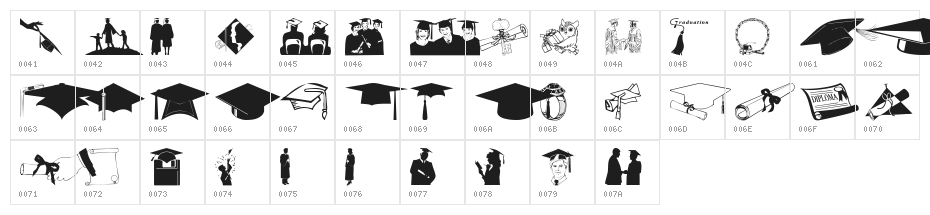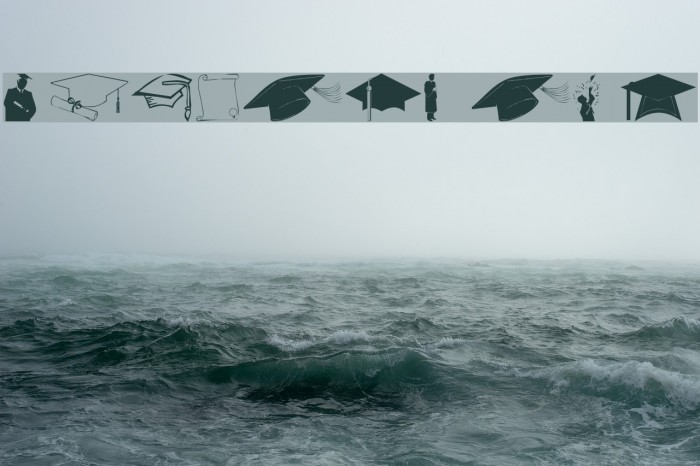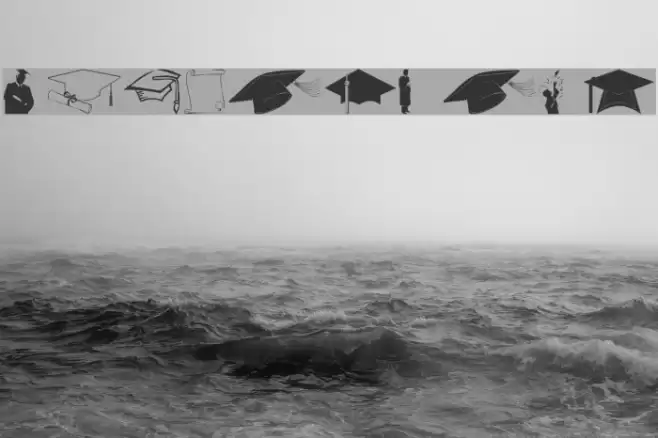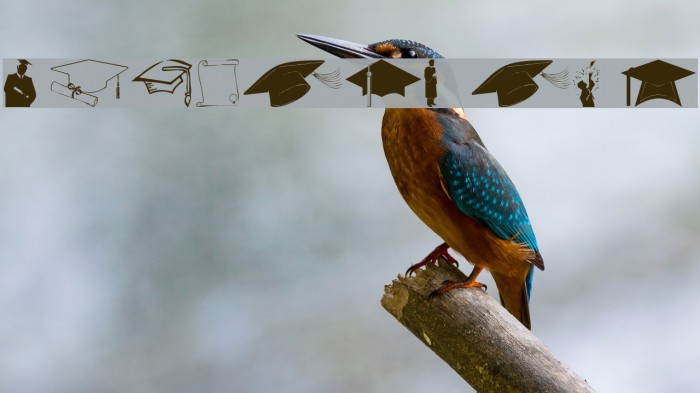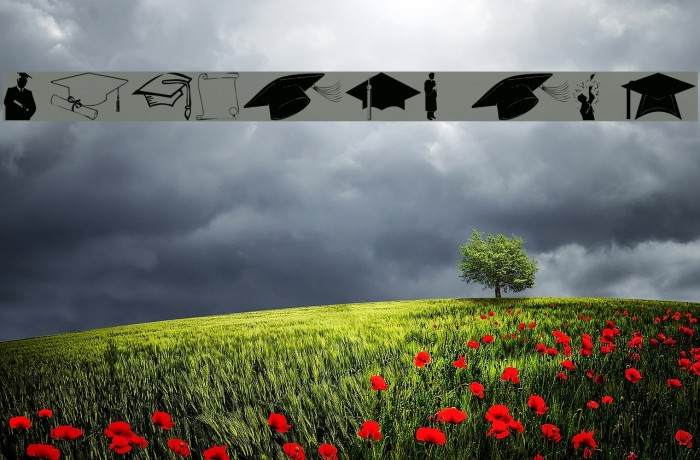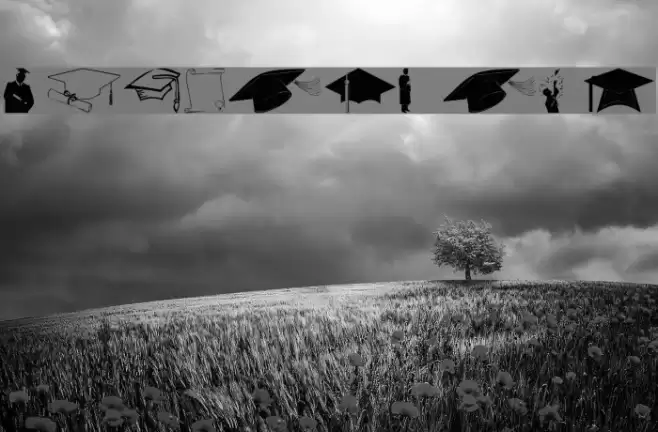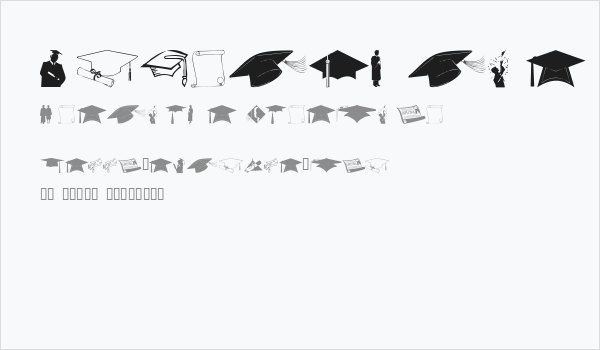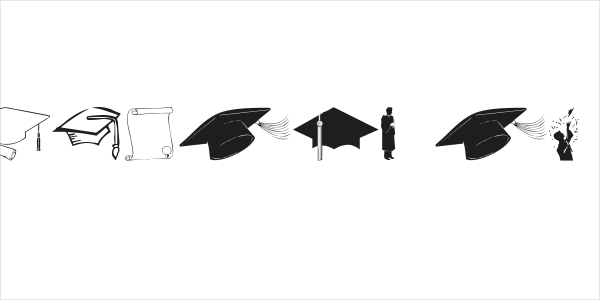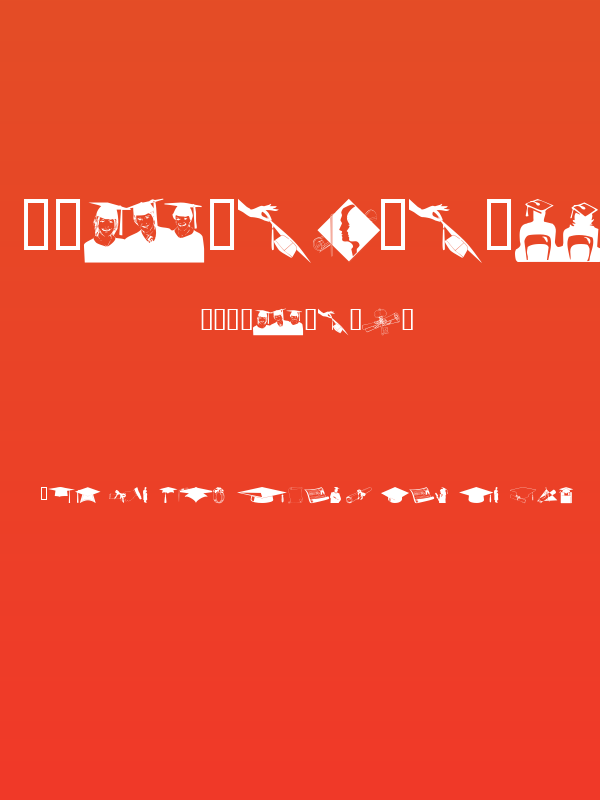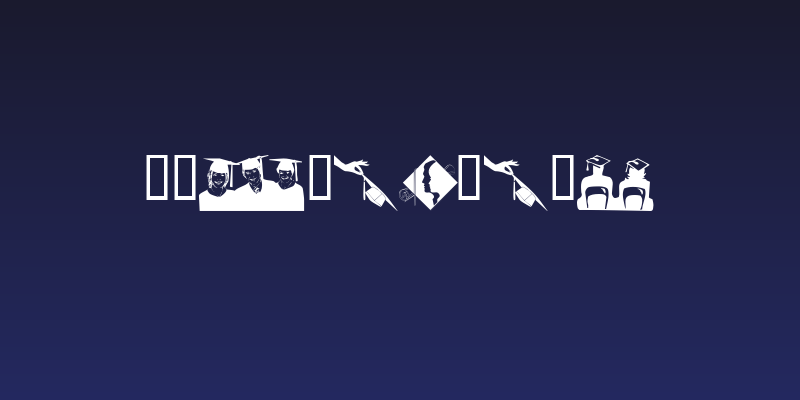
wmgraduate Font
wmgraduate Description
A decorative dingbat font featuring various graduation-themed illustrations, including graduates in caps and gowns, diplomas, graduation caps, and celebratory scenes. Each character is replaced by a unique graduation-related icon rather than traditional alphanumeric glyphs.
| Overall Style | Decorative, Thematic |
| Use Case | Decorative elements, Themed graphics, Event materials |
| Proposed Projects | Graduation invitations, event programs, certificates, congratulatory cards, educational posters. |